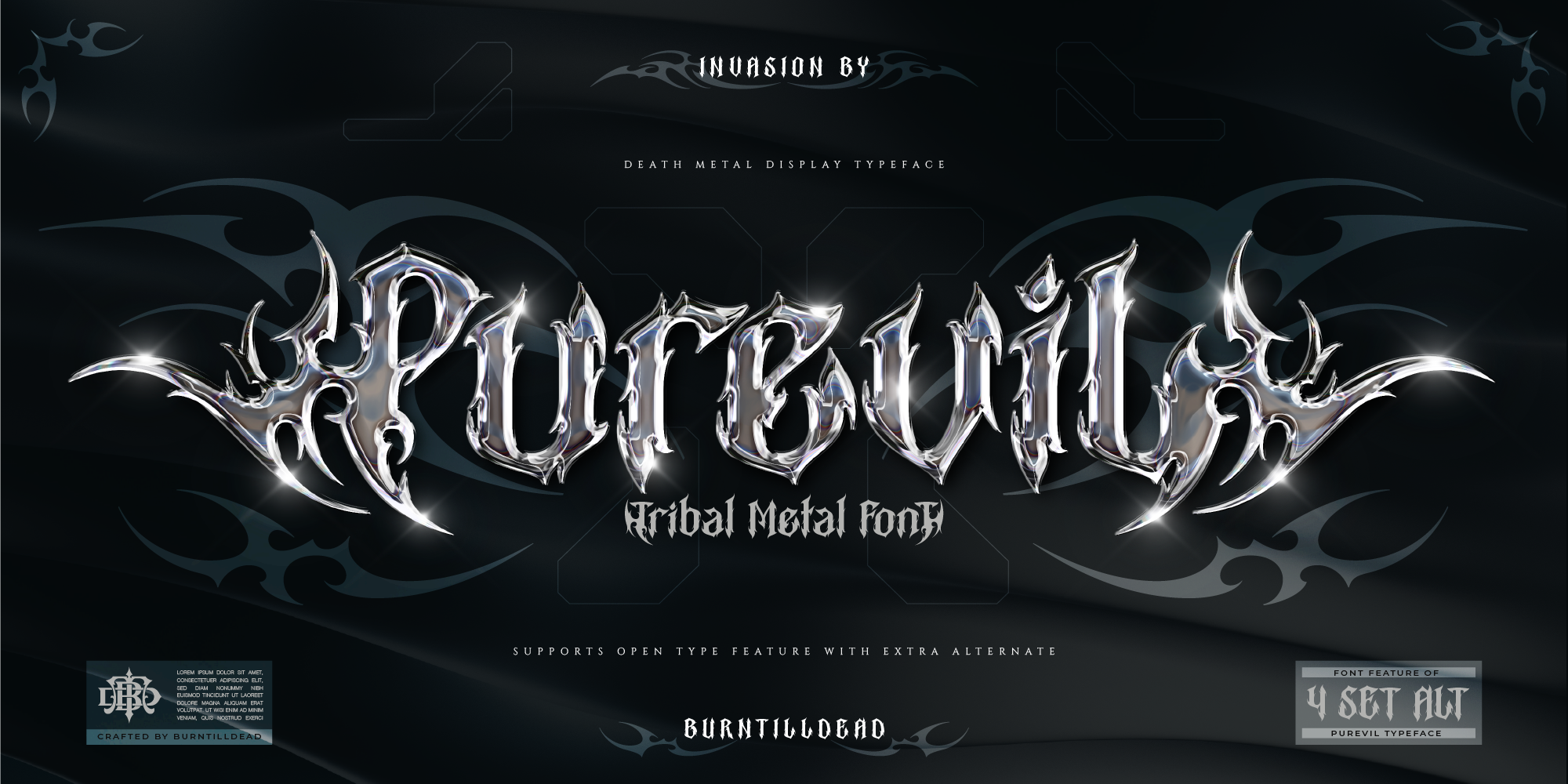
Purevil Font is ideal for dark design applications including horror movie posters, gothic brand identity, heavy metal album covers, Halloween event graphics, thriller book covers, dark fantasy gaming interfaces, mysterious escape room branding, and dramatic advertising campaigns that require typography with sinister character and ominous presence.
What makes Purevil Font exciting is its masterful ability to evoke darkness and mystery through dramatically crafted letterforms that create an atmosphere of intrigue and supernatural tension. This compelling typeface features sharp, angular characteristics with menacing details that instantly communicate power, mystery, and gothic sophistication. The font's dark personality and commanding presence make it perfect for brands seeking to establish dramatic impact and communicate values of intensity, mystery, and bold creative expression to audiences who appreciate edgy, unconventional design.
Purevil Font family encompasses multiple weights and stylistic variations designed for comprehensive dark aesthetic communication. The family typically includes regular, bold, and black weights, complemented by distressed versions, gothic alternates, and extended character sets with special symbols that enhance its sinister appeal and provide maximum dramatic impact.
Dark aesthetic designers consistently select Purevil Font Free Download for projects requiring typography that embodies gothic sophistication and dramatic intensity. This powerful typeface delivers exceptional visual impact across entertainment applications, from digital gaming platforms to large-scale promotional materials, ensuring consistent brand messaging with unmistakable dark authority and mysterious appeal. The font's precisely crafted letterforms maintain excellent readability while delivering the ominous presence that dramatic brands demand. Creative agencies worldwide rely on this distinctive typeface to communicate brand values of intensity, creativity, and bold artistic expression. Embrace the darkness with Purevil Font and create memorable visual communications that resonate with audiences who appreciate gothic aesthetics, dramatic storytelling, and the powerful allure of mysterious design.